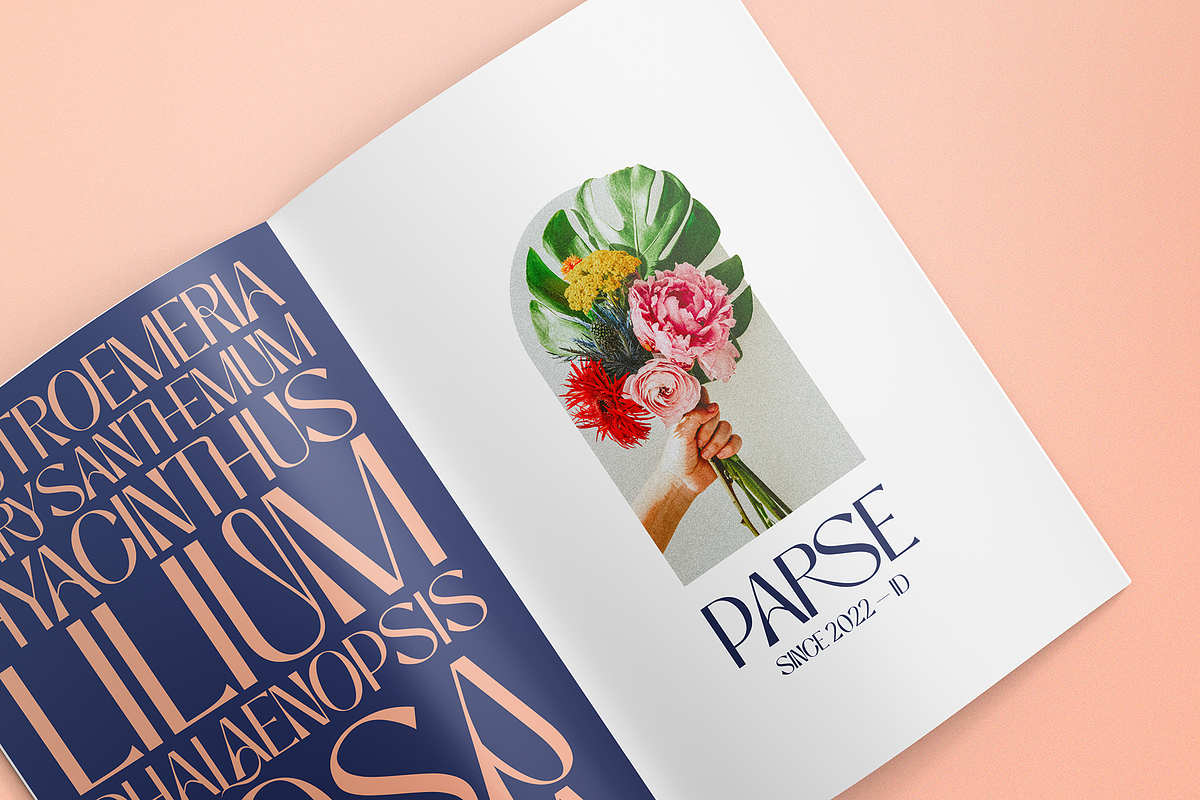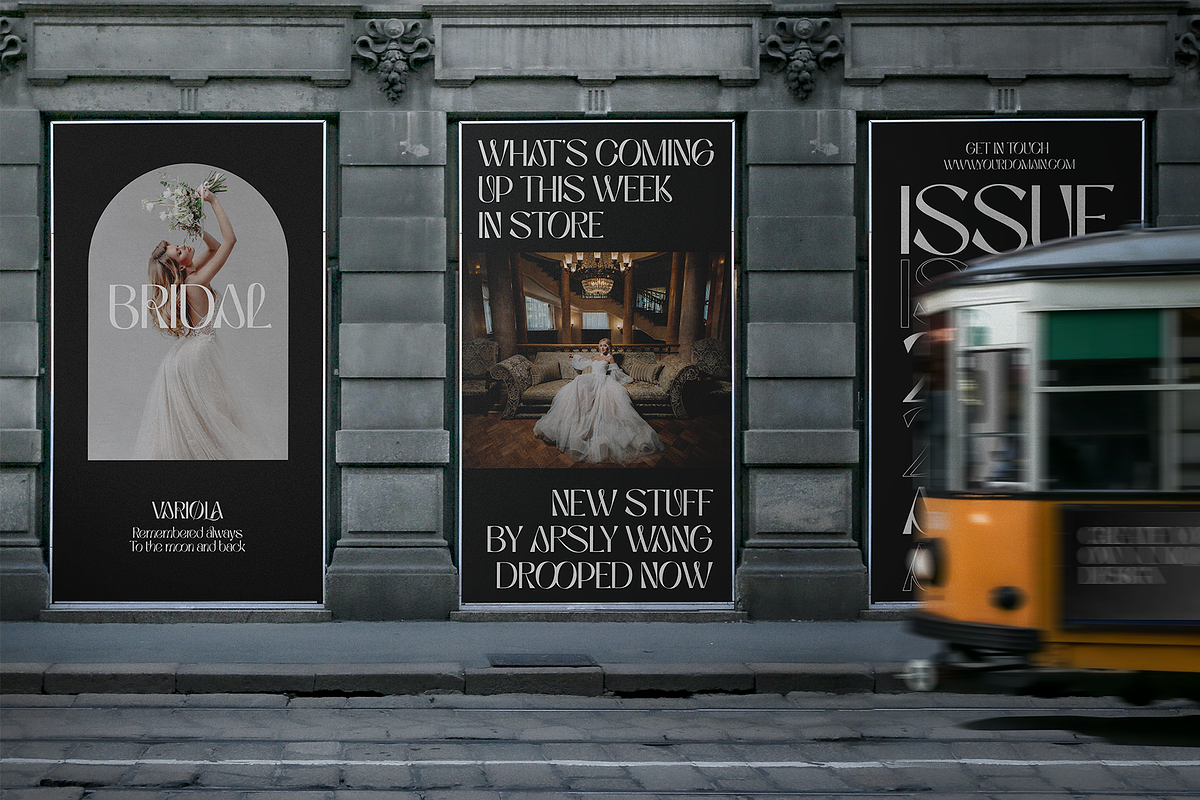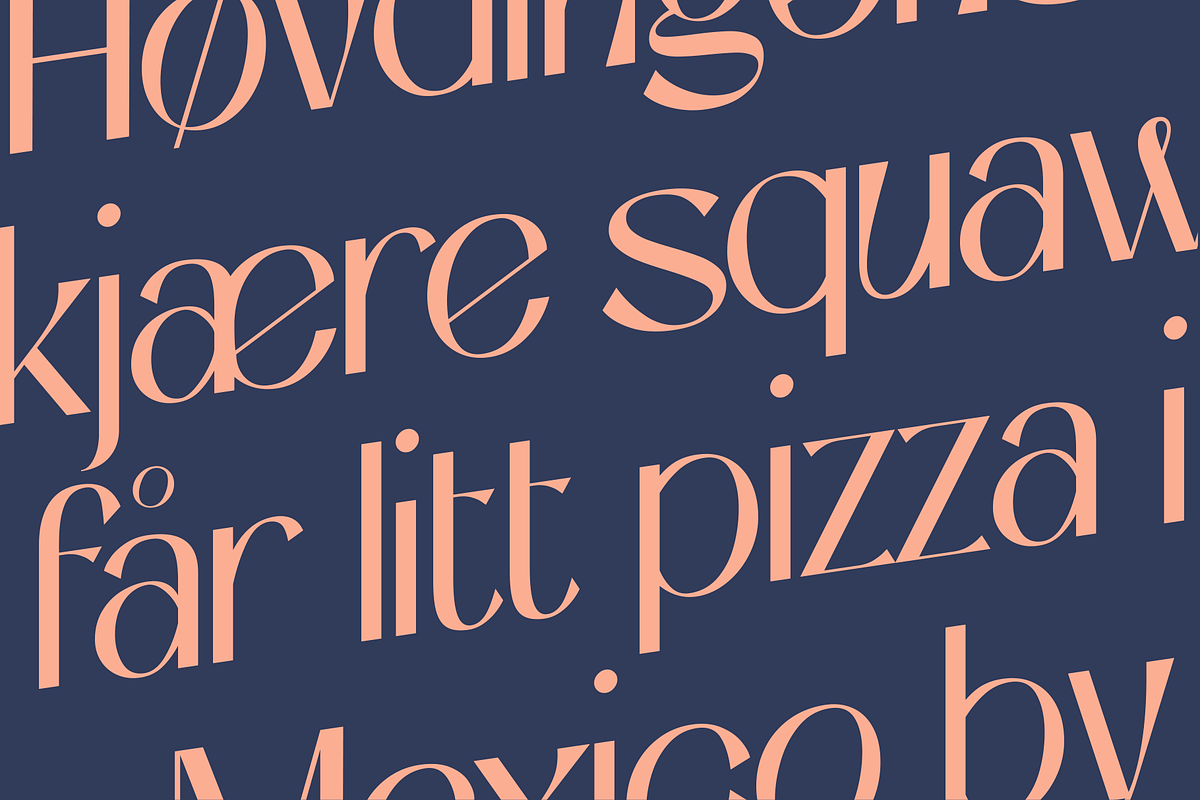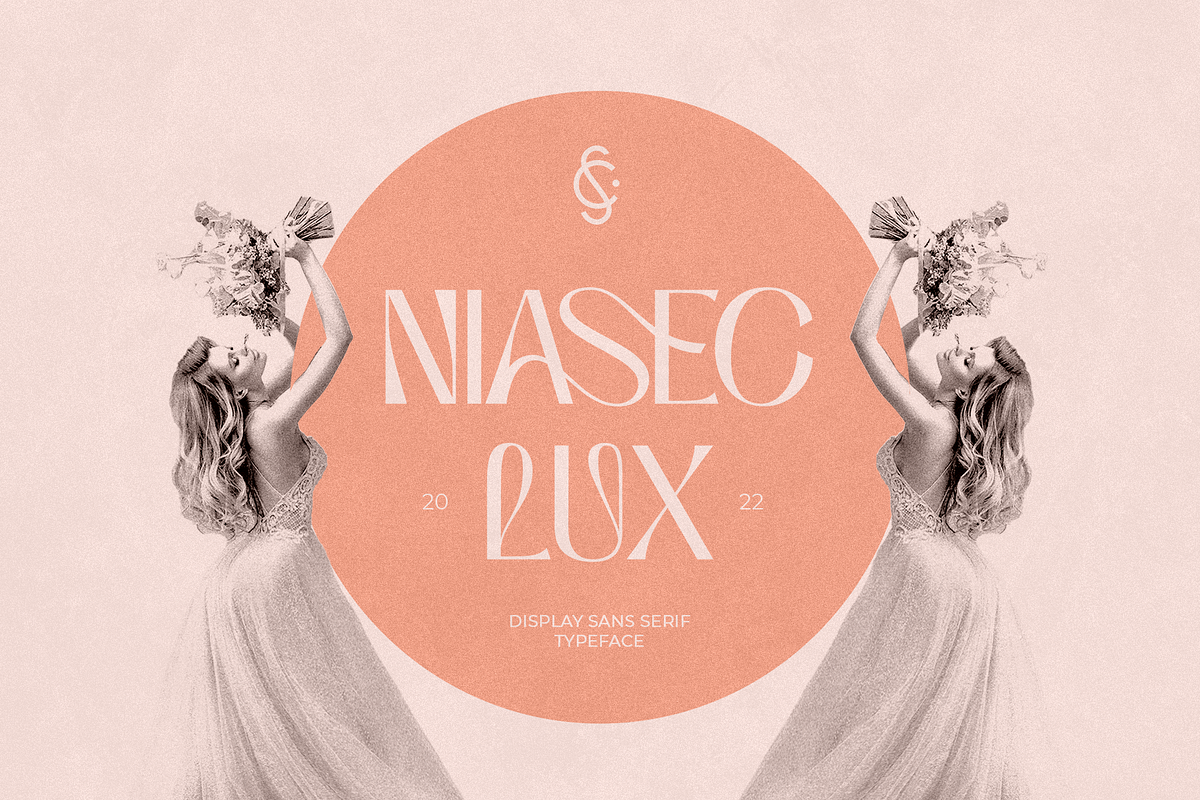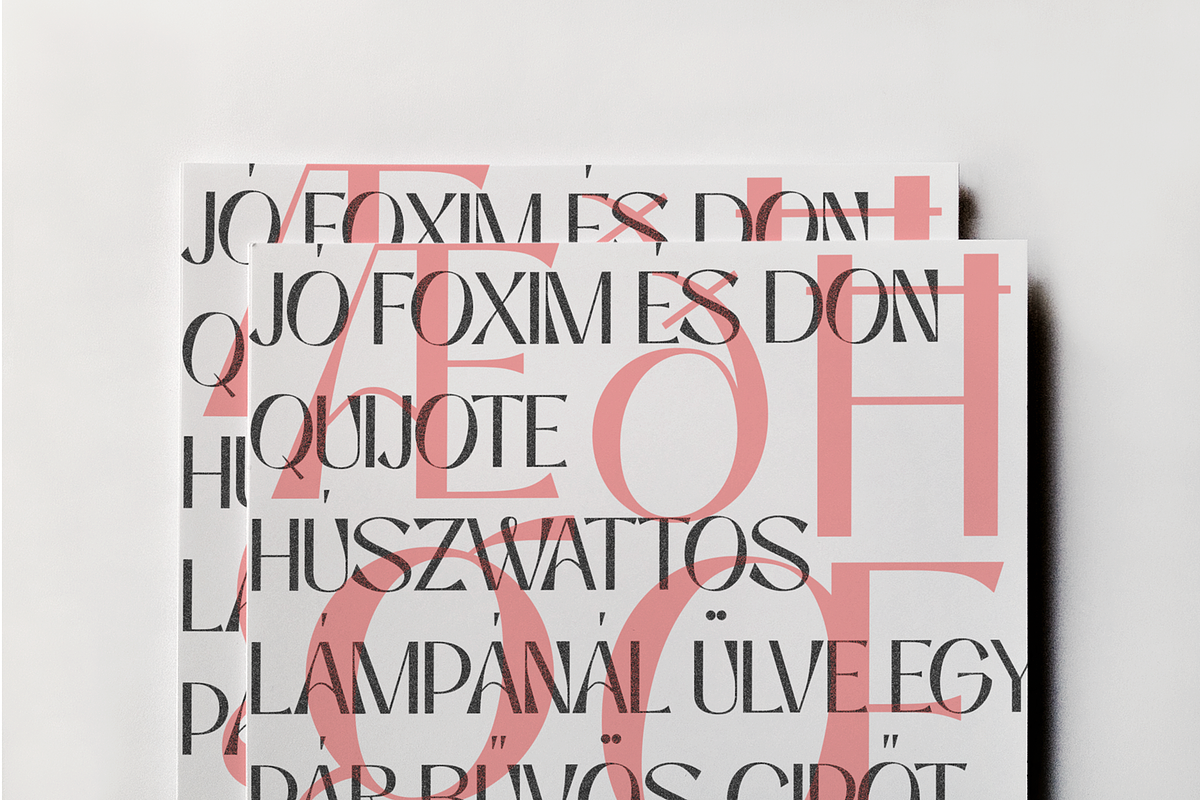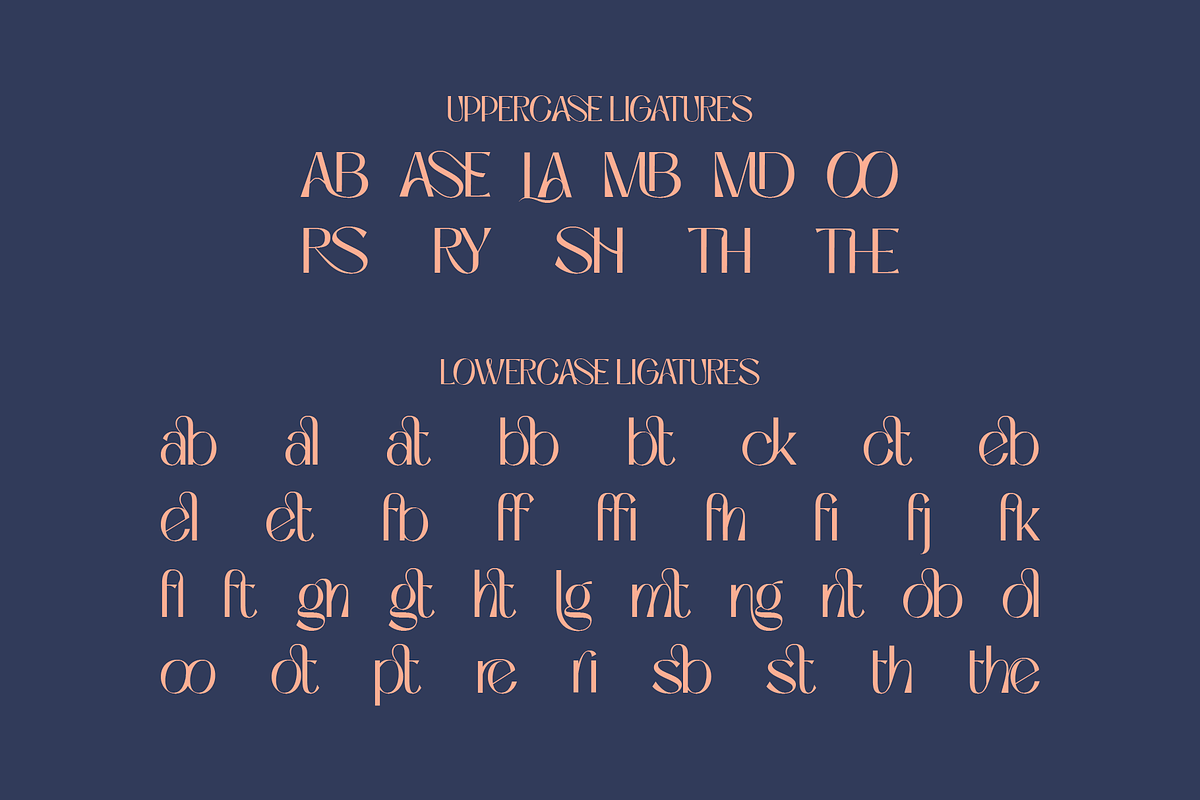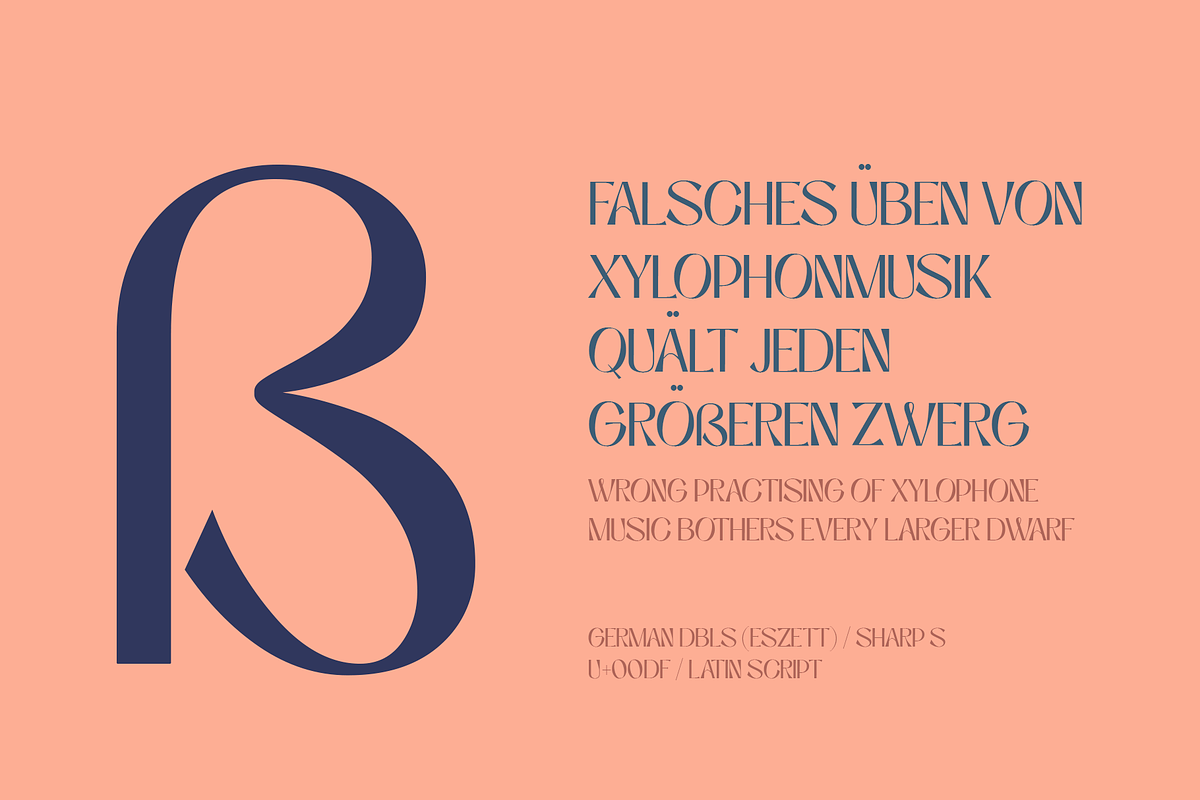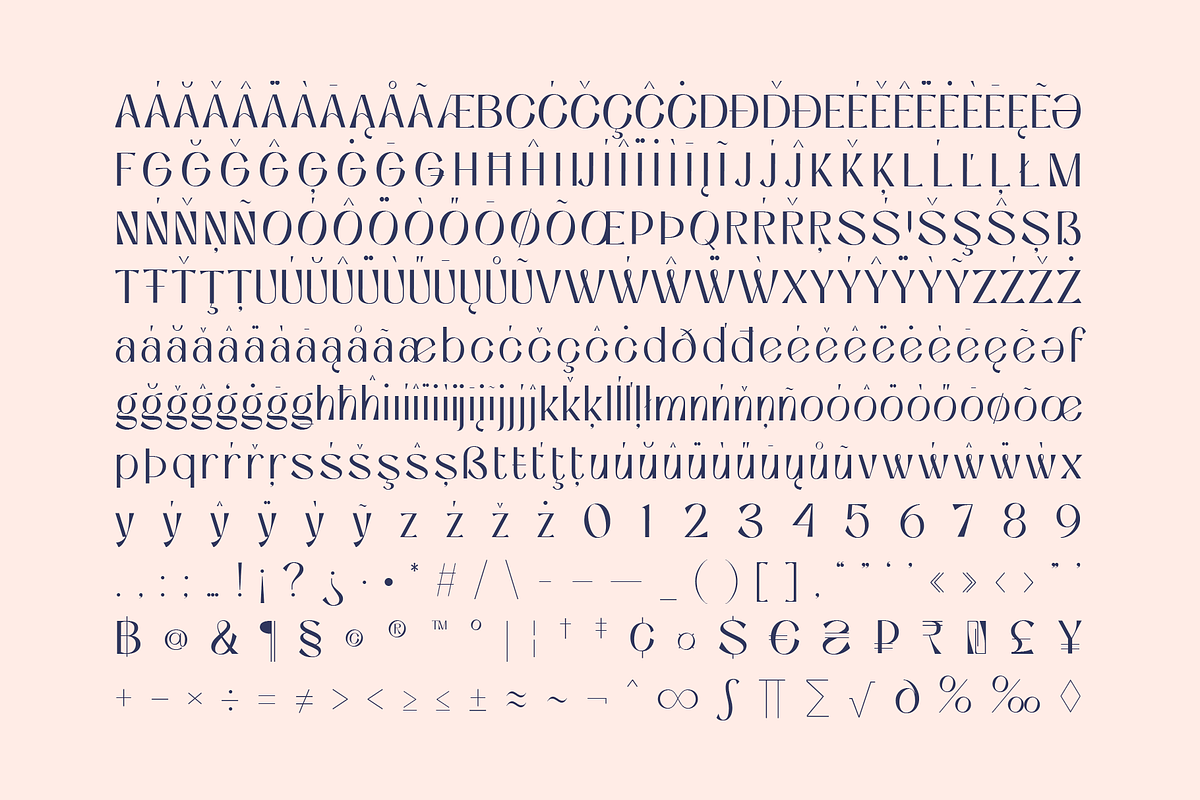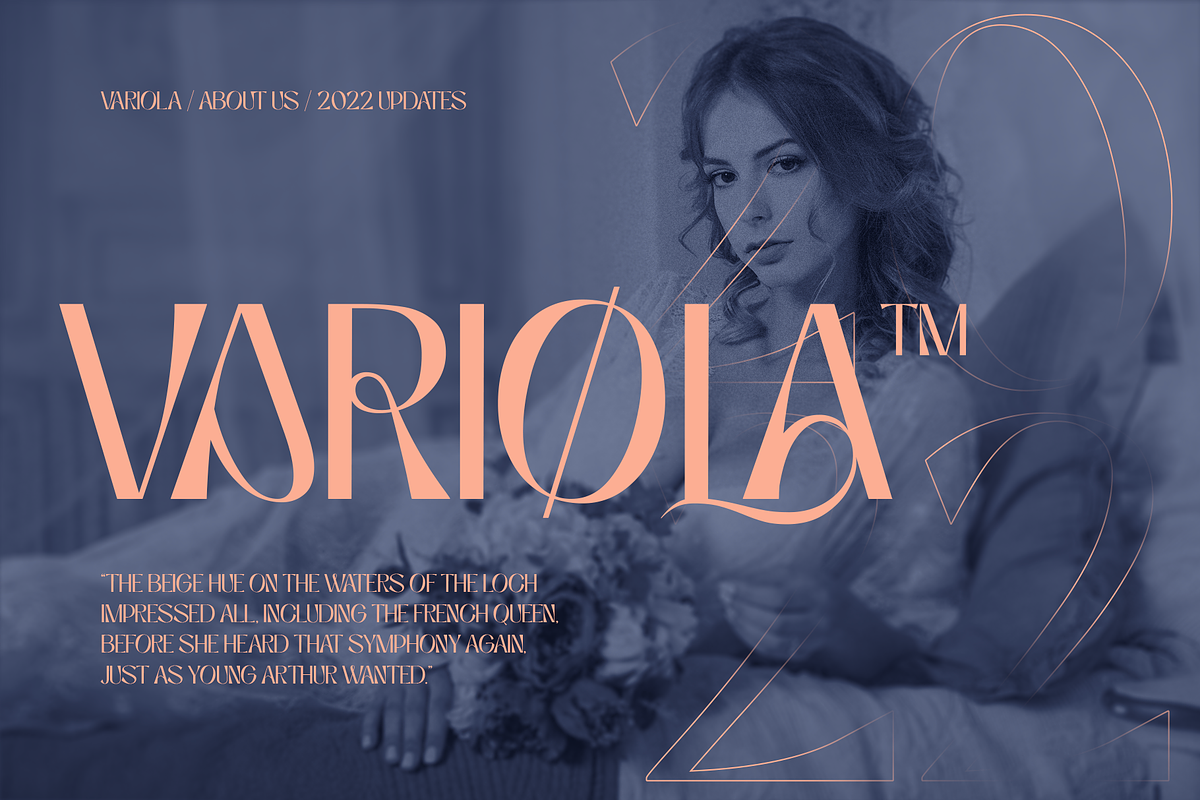
Niasec Lux Elegant Display Font
Introducing Niasec Lux, your gateway to world-class typography in a striking tan hue. This display font, enriched with the essence of Heart, Valentine, and Festive themes, stands out effortlessly, offering a Sans-serif style with captivating ligatures and experimental nuances. Niasec Lux is not just a font; it's an experience that transforms ordinary words into a symphony of beauty.
Niasec Lux holds its own in various contexts, bringing an eccentric twist to your website, packaging, logos, and Luxes branding endeavors. Picture it on your brewery logo, exuding luxury, or gracing your vogue editorial with its First Class appeal. Niasec Lux thrives in every setting, from the trendy streets of Memphis to the serene beauty of Santorini.
With its impressive features, Niasec Lux guarantees pure joy for designers and users alike. The soft curves add a delicate and contemporary look, while the ligatures provide a dangerously stylish yet perfectly legible feel. Immerse yourself in a font that captures the essence of better days, after-hours musings, and carefree creativity.
Niasec Lux is the nimbus epitome of originality, offering a fun style that resonates with the loving hues of oranges and the dreamy avenues of luxury. Its unique design, inspired by diverse cultures from Western to Korean, and even Chinese influences, gives it a global appeal.
Niasec Lux Display is complete with character set styles, ligature, and multi-language support. Then add to the proportions of numbers and symbols in harmony with the basic letters, giving an earlier impression of the work you are about to create.